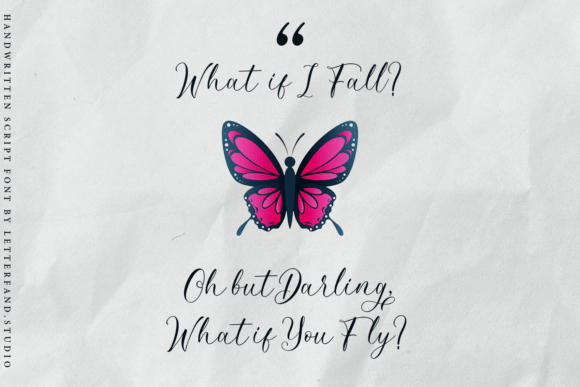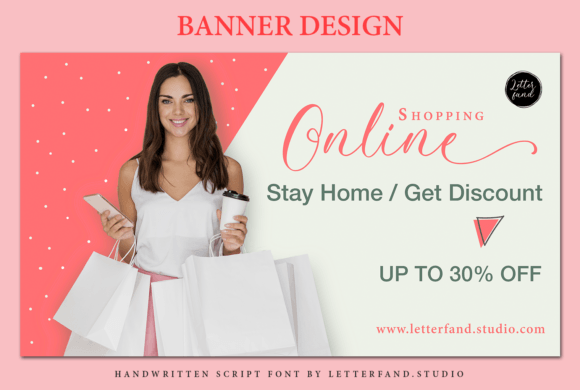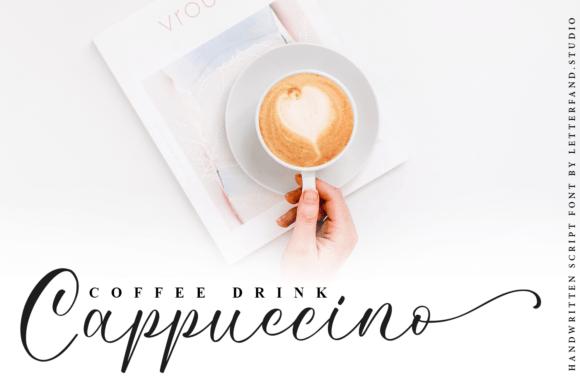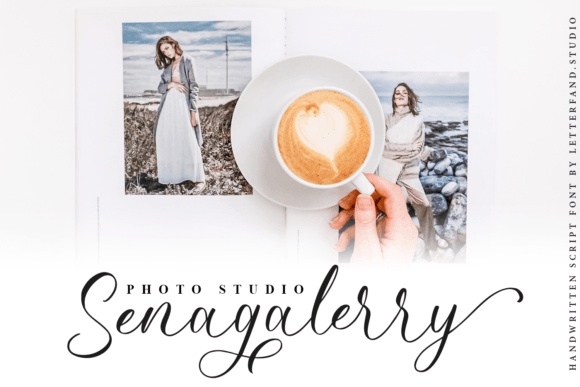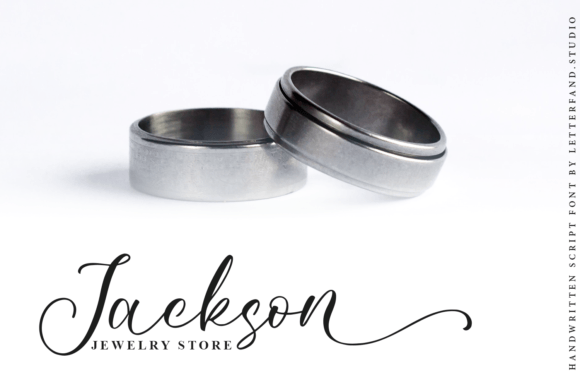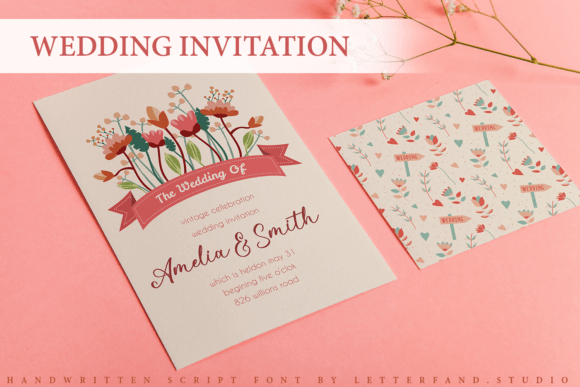
Introducing Amelia Darling Font: Elevate Your Designs with Luxury and Sophistication
In the world of design, typography plays a crucial role in conveying the tone and aesthetic of a project. For designers and crafters seeking to add a touch of elegance and modernity to their creations, the Amelia Darling Font is an exceptional choice. This stunning, thin handwritten font is crafted in a contemporary style that is currently trending among designers, offering a luxurious appearance that will undoubtedly make your designs stand out.
What is Amelia Darling Font?
Amelia Darling is a beautifully designed, thin handwritten font that embodies the essence of modern luxury. Its sleek lines and fluid strokes create a sophisticated look that is perfect for a wide range of design applications, from branding and advertising to packaging and digital media. The font’s unique charm lies in its ability to convey a sense of refinement and poise, making it an ideal choice for designers who aim to create visually stunning and cohesive designs.
Key Features of Amelia Darling Font
- Modern Style: Amelia Darling Font boasts a modern aesthetic that aligns with current design trends, ensuring your projects look fresh and contemporary.
- Thin Handwritten Design: The font’s thin, handwritten appearance adds a personal touch to your designs, making them more approachable and engaging.
- Luxurious Appearance: With its sleek and sophisticated look, Amelia Darling Font brings a touch of luxury to any design, elevating it to a higher level of visual appeal.
- Versatility: This font is incredibly versatile, suitable for a variety of design projects including but not limited to logos, stationery, web graphics, and social media posts.
Why Choose Amelia Darling Font?
Choosing Amelia Darling Font for your design projects comes with numerous benefits. Firstly, it allows you to create distinctive and memorable designs that capture the attention of your audience. The font’s modern and luxurious look ensures that your projects exude quality and sophistication, which can significantly enhance your brand’s image.
Furthermore, Amelia Darling Font is designed to be highly legible, making it perfect for both headings and body text. This versatility ensures that you can maintain consistency in your typography across various design elements, creating a cohesive and professional look.
How to Use Amelia Darling Font in Your Designs
Amelia Darling Font is a remarkable addition to any designer’s toolkit. Its modern, thin handwritten design and luxurious appearance make it an ideal choice for creating visually stunning and sophisticated designs. Whether you’re working on a branding project, crafting digital content, or designing promotional materials, this font is sure to elevate your work to new heights. Discover the elegance and versatility of Amelia Darling Font and transform your designs with its unique charm.